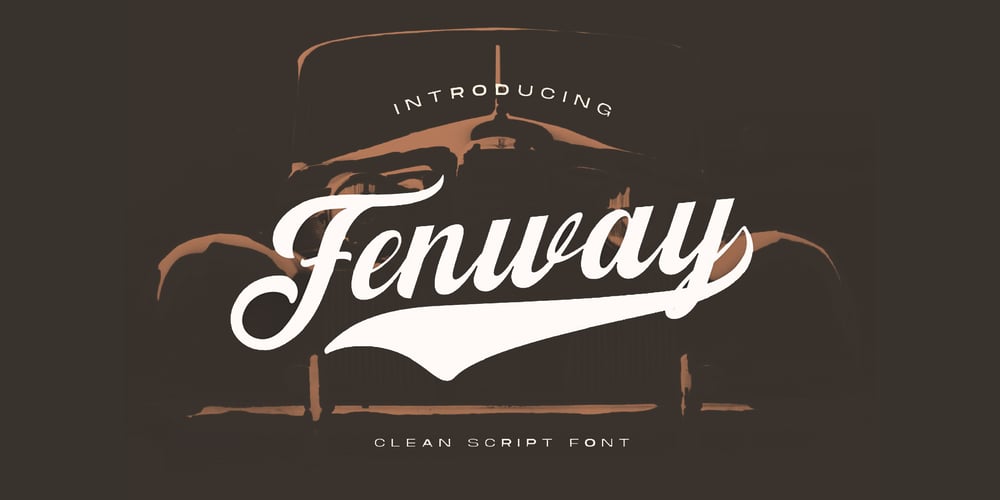
Fenway
Fenway font
Fenway Font Family was designed by Heri Imanudin and published by Krafted. Fenway contains 1 styles and family package options. Are you ready to delve into the rich depths of history? Are you ready to make your branding bold? Are you looking for a statement font that exudes prominence, style, and adventure?Introducing Fenway – A Clean Script Font. This clean script font can be used for a host of different content needs and projects. Use it to make your headings stand out, enhance your logos, style up your business cards, elevate your website and social media, and bring class, style, and history across all your channels.Get ready to captivate, engage, and inspire your audience and clients with Fenway.What you’ll get:- Multilingual & Ligature Support- Full sets of Punctuation and NumeralsCompatible with:- Adobe Suite- Microsoft Office- KeyNote- PagesSoftware Requirements:The fonts that you’ll receive in the pack are widely supported by most software. In order to get the full functionality of the selection of standard ligatures (custom created letters) in the script font, any software that can read OpenType fonts will work.We hope you enjoy this font and that it makes your branding sparkle! Feel free to reach out to us if you’d like more information or if you have any concerns.